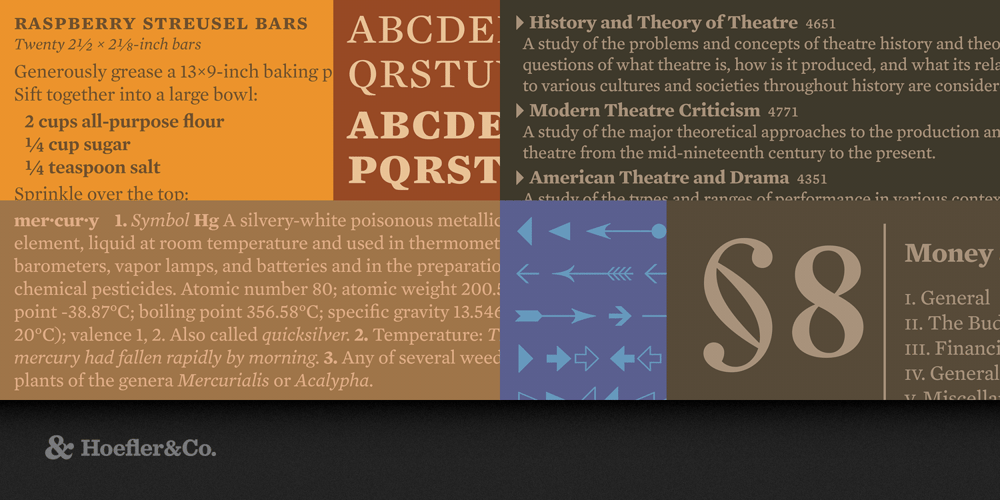
Mercury Text Font Family was designed by Jonathan Hoefler and Tobias Frere-Jones and published by Hoefler & Co.. Mercury Text contains 48 styles and family package options. The product of nine years’ research and development, Mercury Text is a family of high-performance text faces designed to thrive under the most adverse conditions. The Mercury Text typeface was designed by Jonathan Hoefler and Tobias Frere-Jones in 2000, as a text-size counterpart to Hoefler’s Mercury Display of 1996. A loose adaptation of the sparkling baroque typefaces of Johann Michael Fleischman (1701-1768), Mercury was an inflection point in Hoefler’s typefaces, in which explicit historical revivals pivoted to more expressive interpretations inspired by historical themes. First appearing in the pages of Esquire in 2000, and expanded into a larger family of typefaces for the New Times newspaper chain, Mercury Text is in the permanent collection of the Museum of Modern Art in New York. From the desk of the designer: Even while the headline font Mercury Display was still on the drawing board, we suspected that many of its ideas might someday lend themselves to a good text face. Mercury’s compact proportions and clear gestures would naturally reproduce well in small sizes, and we imagined that its spiky geometry and taut curves could make text sparkle. Alexander Isley gave us the opportunity to explore these possibilities in 1999, when he asked us to solve an interesting problem for the New Times newspaper chain. Newspapers are one of typography’s most challenging environments, not only because their high-speed presses coincide with pulpy papers and thin inks, but because they contain so many different kinds of information — arranged in countless ways — that are composed not by designers but by software. The New Times faced all these difficulties, plus one more: its eleven weekly editions were printed in different regions, each of which was subject to different atmospheric conditions on press. We were asked to consider the idea of a type family whose design could anticipate and counteract these differences, so that formats developed for the Phoenix edition could be deployed in Miami as well. We designed Mercury Text in a series of grades, sibling members of a type family which share the same underlying geometry, but offer different degrees of darkness on the page. (Unlike the weights of a type family, which grow progressively wider as they get bolder, a font’s grades increase in color without affecting copyfit.) For the New Times, this meant that different regional editions could use different grades to counteract the local conditions of each press, in order to achieve the same end result. In other media, grades offer the ability to separate typography from its physical substrate, so that the type-warping effects of handmade paper, roll film, flat-panel monitors, or retroreflective sheeting can be all corrected for in the font itself. A year of press-testing ensured that Mercury Text would perform under the most adverse conditions, and in the widest range of formats. Its proportions were fine-tuned to suit those of the news column (offering space-saving advantages in any setting) and its styles were remastered with common editorial functions in mind. Another year spent studying more than 3,800 examples of informational typography in different publications ensured that the fonts’ character sets included all the numeric and graphic symbols necessary to tackle every part of even the most demanding project.Featured in: Best Fonts for Resumes